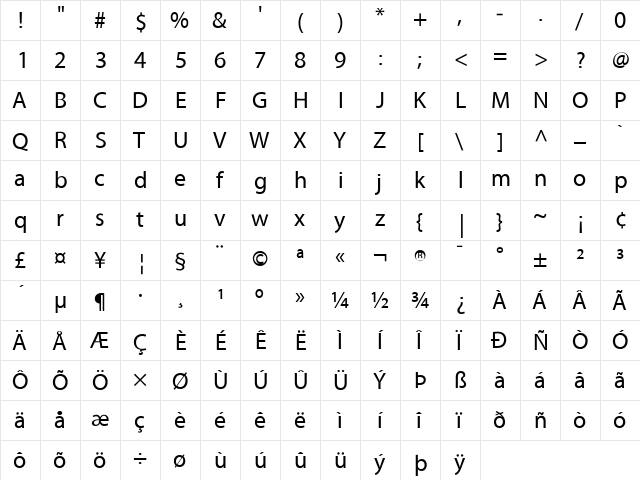
Myriad MM Regular
Design Context for Myriad MM Typeface
Myriad MM takes a measured approach to typography — its balanced proportions and neutral character make it a reliable workhorse for both digital and print work.
Pro Tip: Use Myriad MM in both headline and body roles to test its range before committing to a single application.